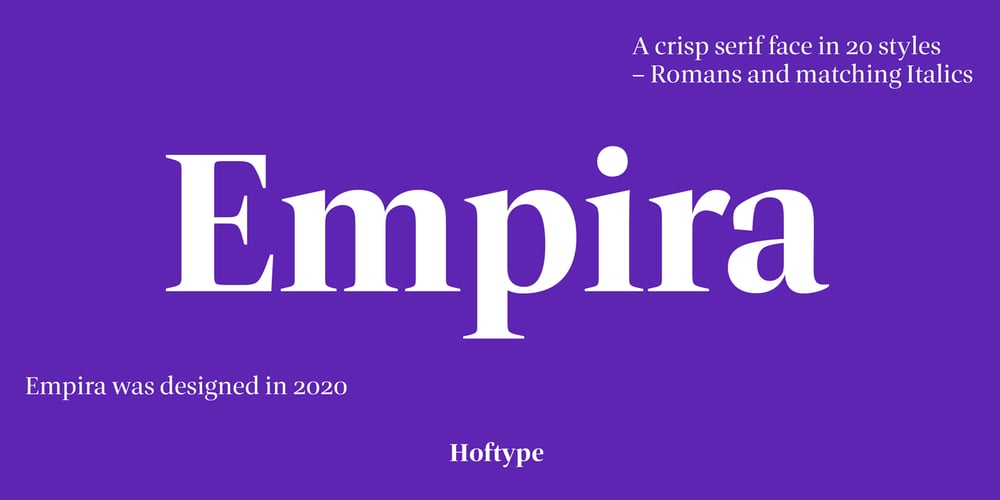
Empira Font Family was designed by Dieter Hofrichter and published by Hoftype. Empira contains 20 styles and family package options. Empira is a new high-contrasted face. While its principal structure shows some reference to transitional faces, the pronounced graphic shape of its elements are definitely of contemporary origin. It appears crisp, sharp and even somewhat fancy. Empira supports up to 80 languages and its OpenType format allows a wide range of typographic applications. 20 styles offer a fine gradation of the weights. All weights contain small caps, ligatures, superior characters, proportional lining figures, tabular lining figures, proportional old style figures, lining old style figures, matching currency symbols, fraction- and scientific numerals, matching arrows and alternate characters.